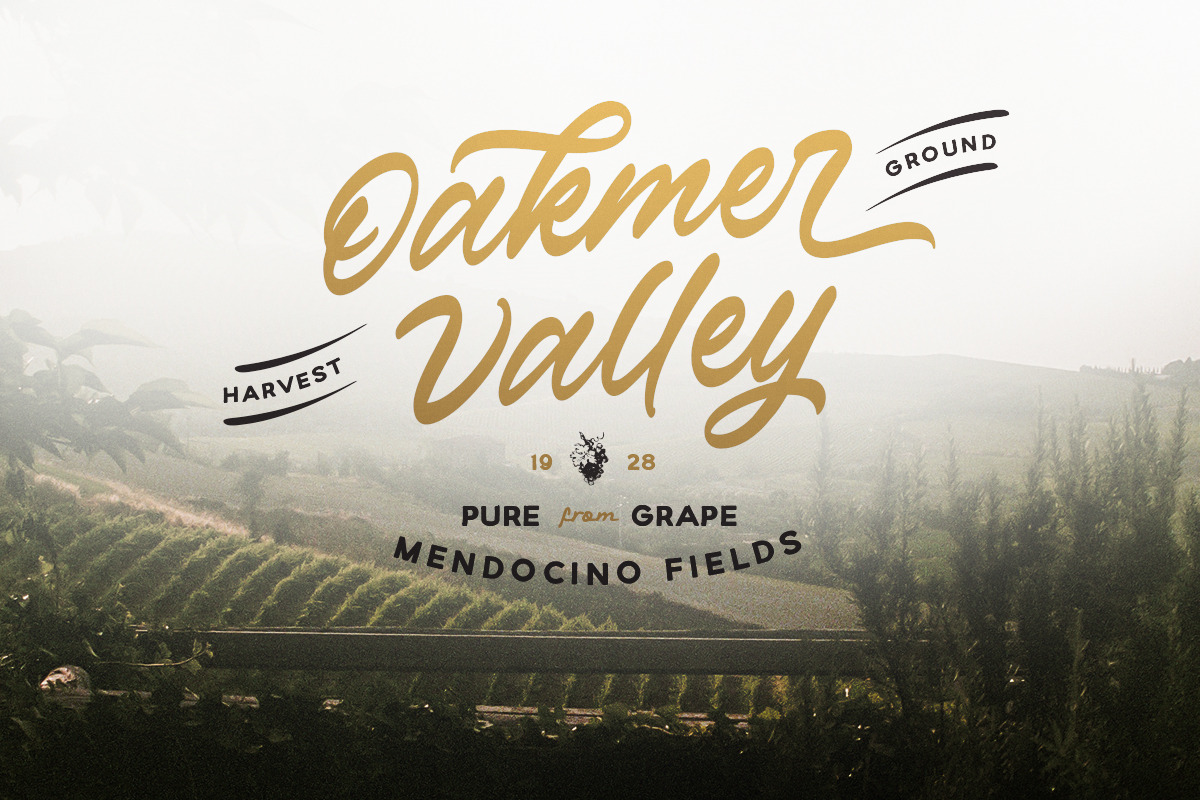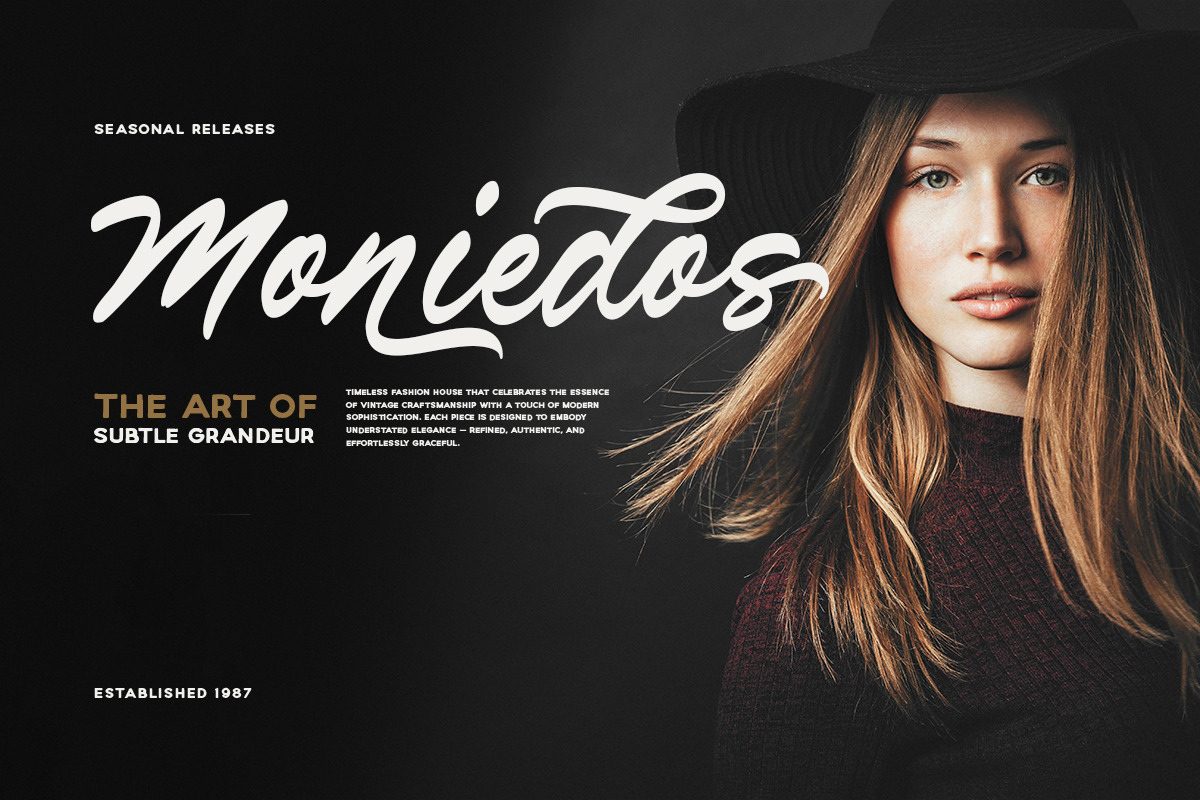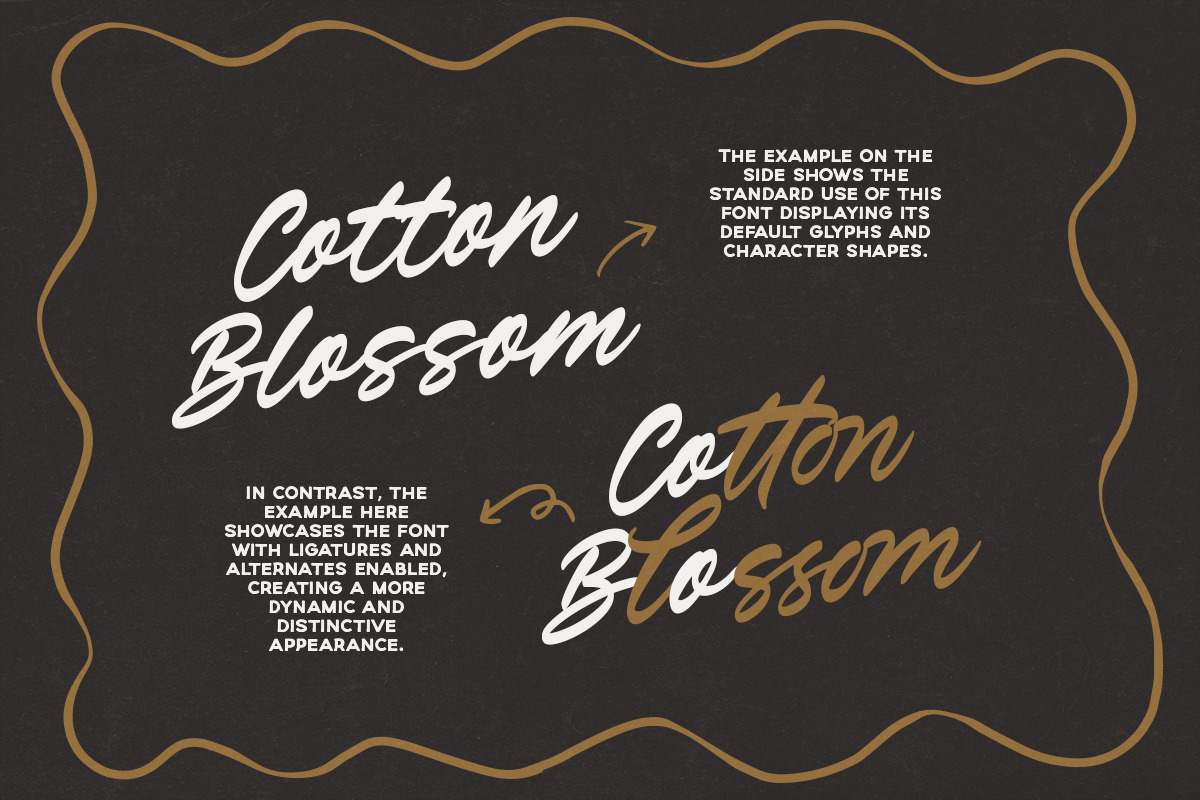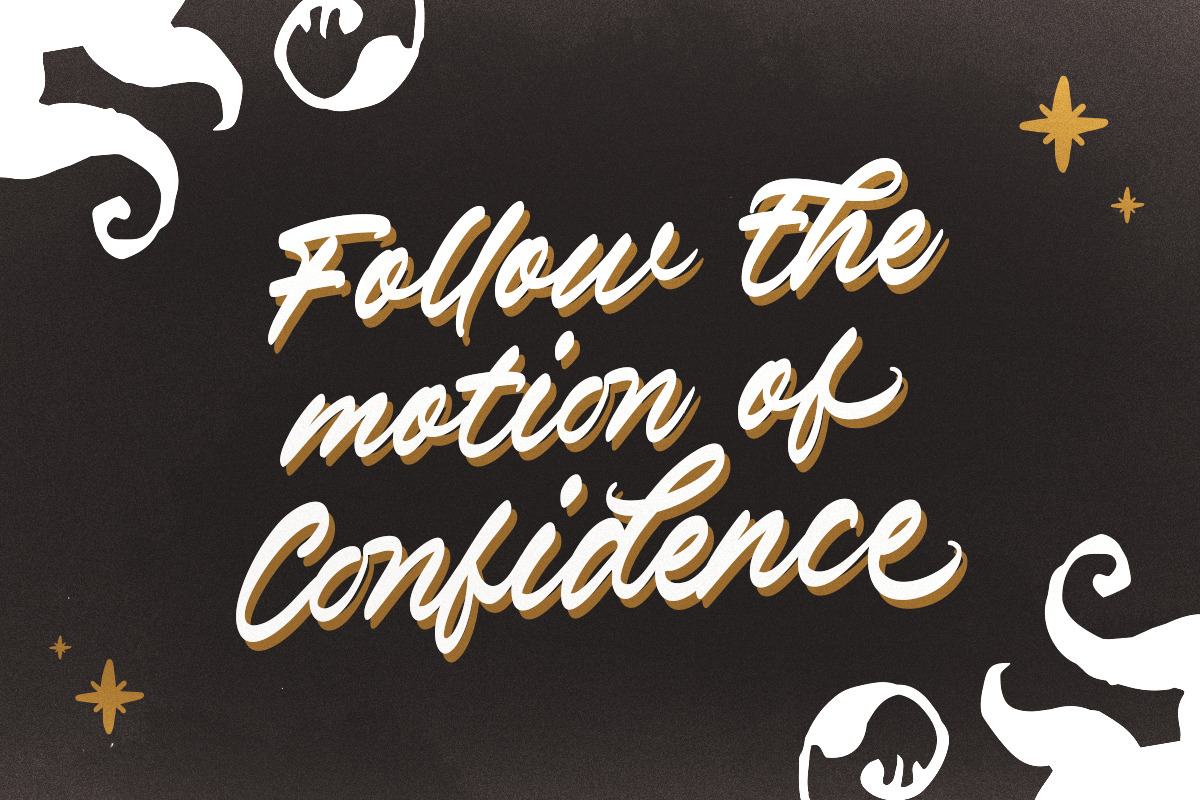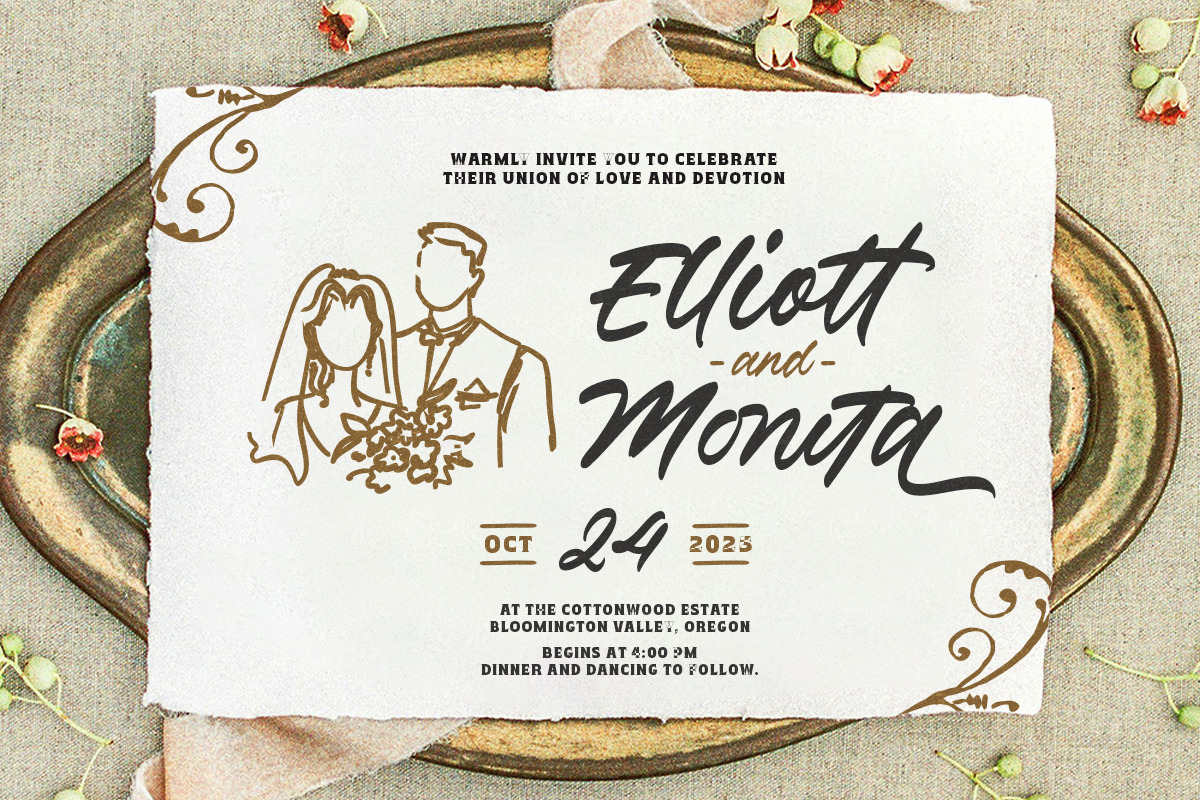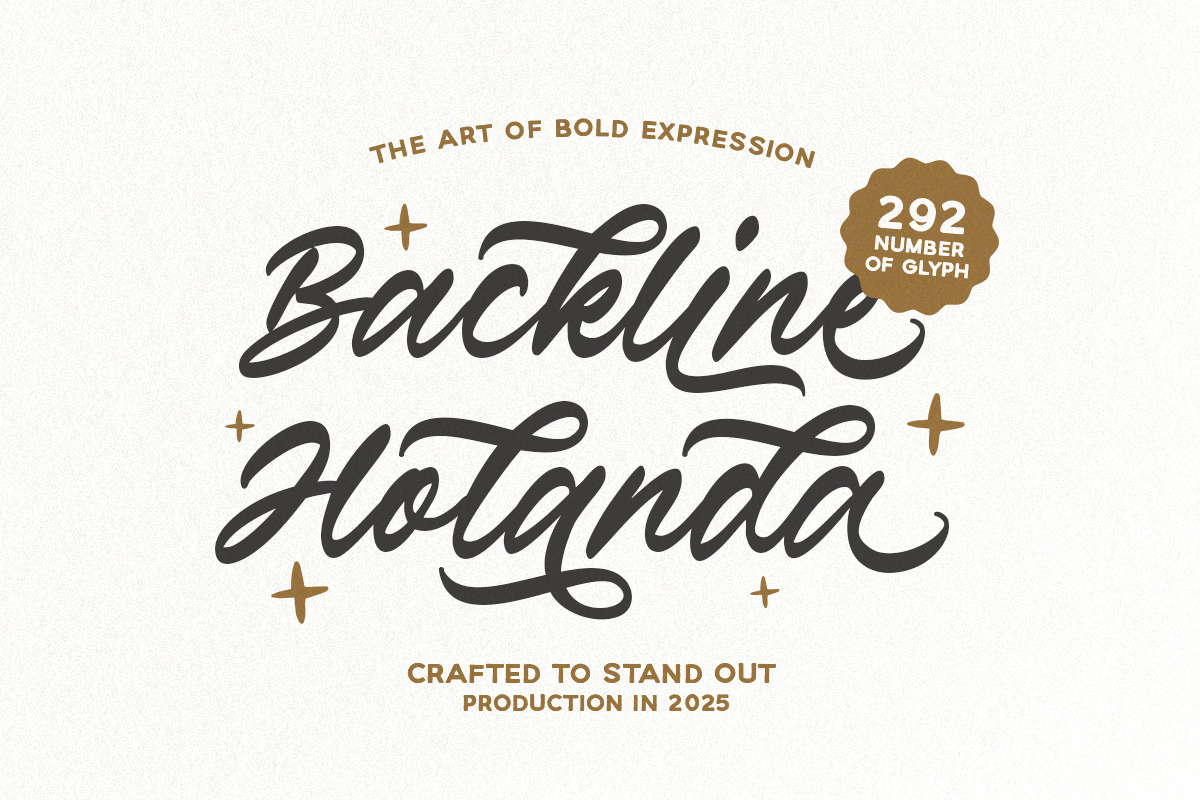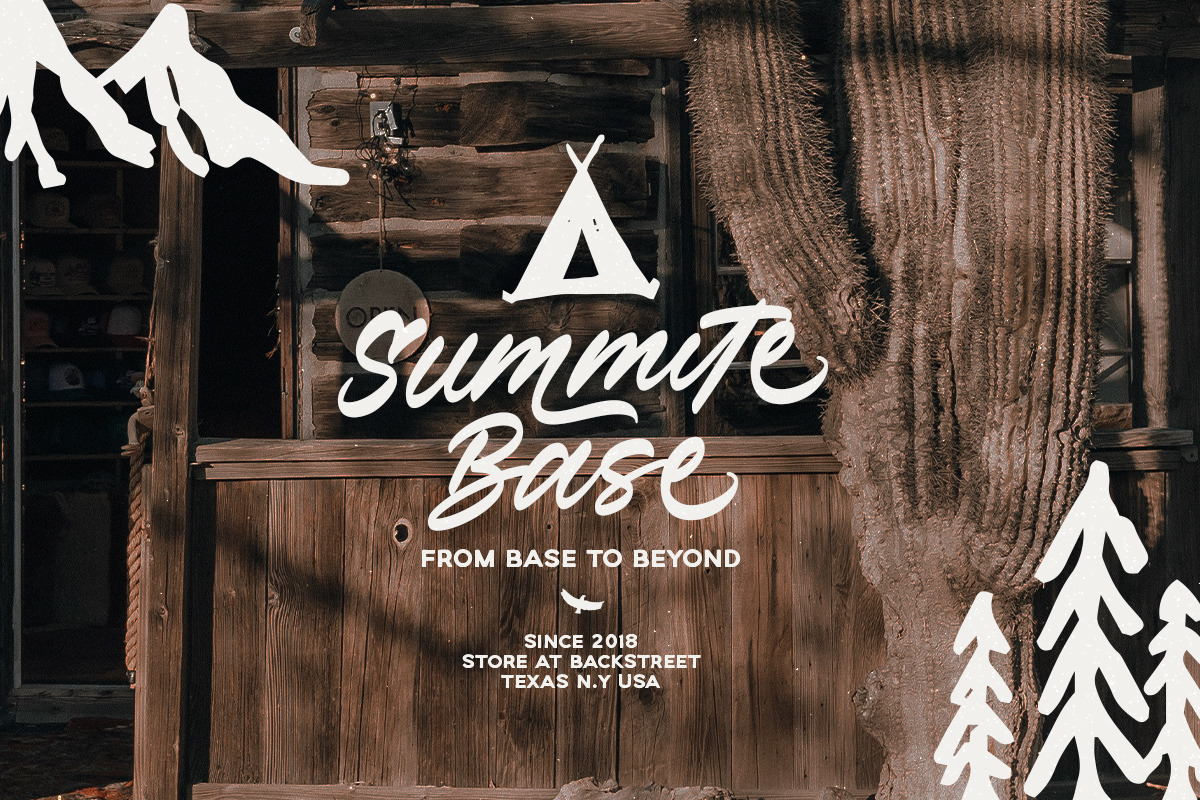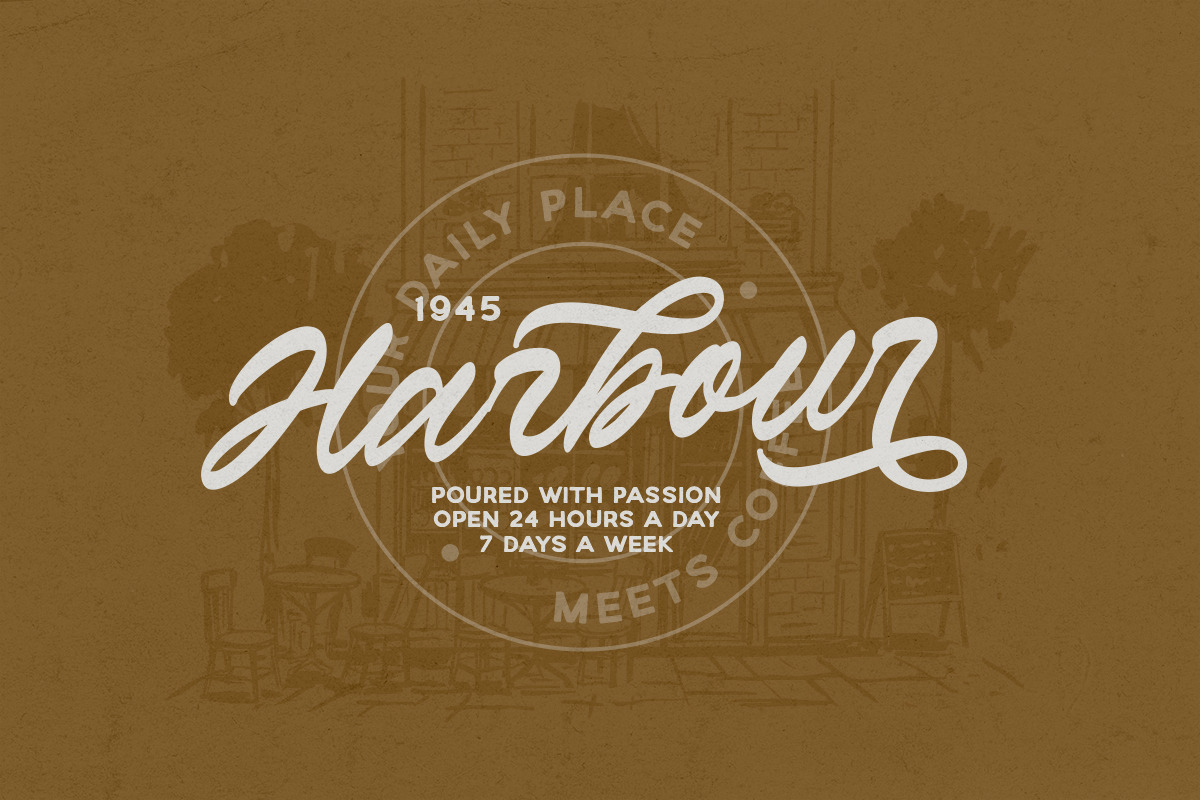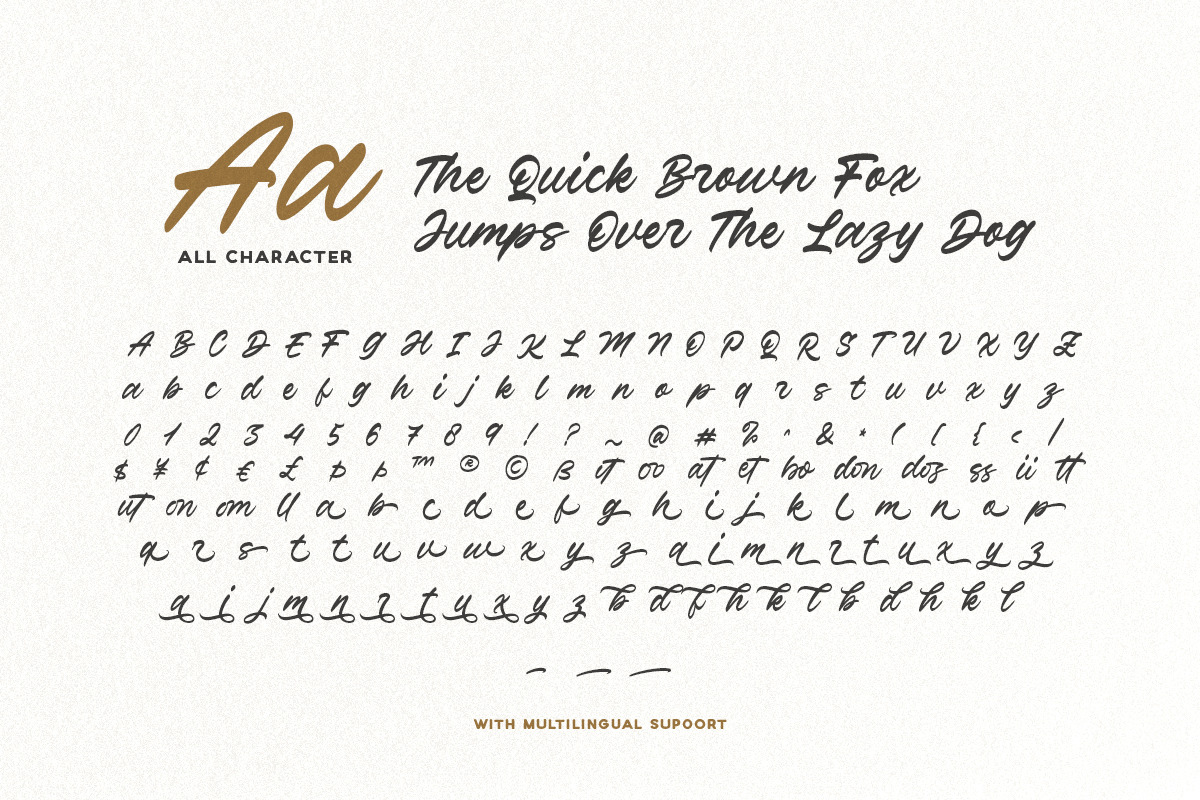
Verdons Wild - Vintage Brush Script
Verdons Wild is a vintage brush script with bunch of alternates and ligatures. You can use this font for any occasion such as logotype, branding, quotes, wedding, or any project with outdoor and adventure theme. With the alternates, you can create even more stunning design and project. This font also support multi language.